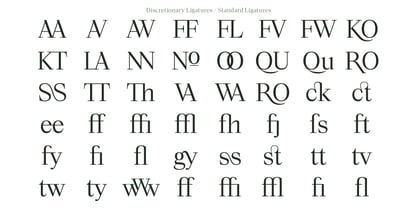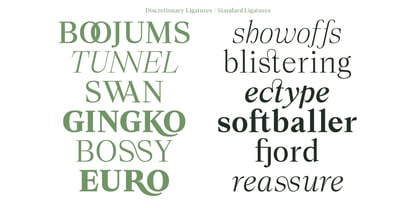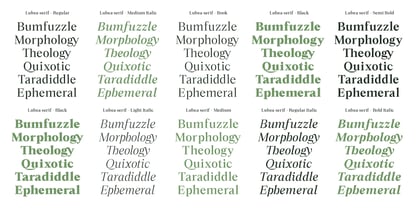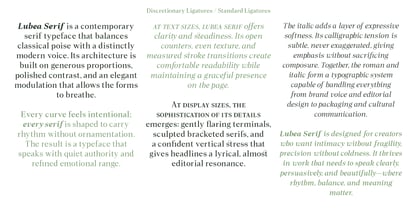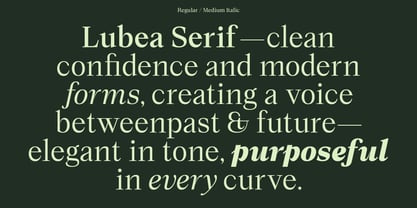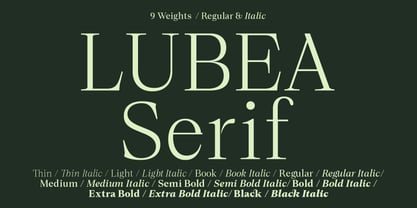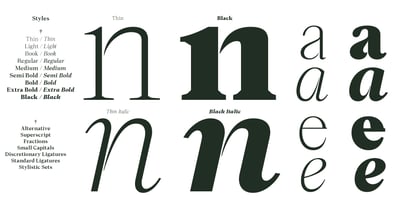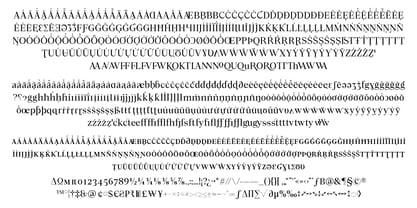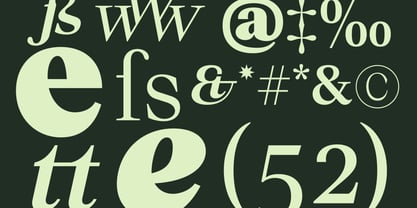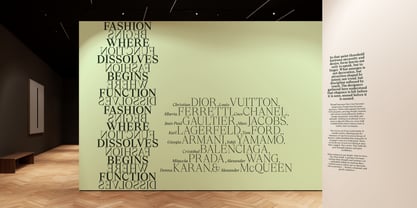
Lubea Serif
The Lubea Serif Font Family was designed by Paul Henry Robb and published by S6 Foundry. Lubea Serif contains 18 styles and family package options. More about this family
Lubea Serif is a serif designed to balance elegance with confident modernity. Refined yet expressive, it brings warmth, charm, and authority to editorial, branding, and cultural work where typographic voice matters as much as clarity. The family spans nine calibrated weights, each paired with a true italic, offering designers precise control across hierarchy, tone, and rhythm. Its construction blends classical serif proportions with a contemporary sensibility, resulting in letterforms that feel both timeless and distinctly current. Lubea Serif is engineered for professional use. It supports over 200 Latin-based languages, includes more than 50 ligatures, and features small capitals and advanced functionality for refined typographic composition. Poised, versatile, and richly detailed, Lubea Serif is a sophisticated choice for designers seeking a serif that communicates culture, confidence, and modern elegance—without sacrificing performance or technical depth.